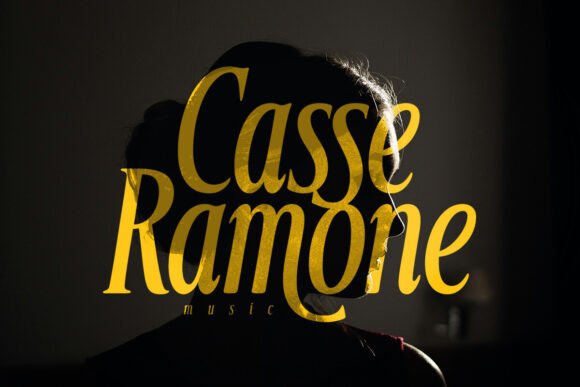
Discover the Elegance of Silkone Font: Elevate Your Designs with Sophistication and Charm
In the world of typography, fonts play a crucial role in conveying the tone and personality of a brand or design. Among the numerous fonts available, Silkone stands out as a sleek and refined display font that embodies sophistication and charm. Designed to make a lasting impression, Silkone offers a perfect blend of elegance and versatility, making it an ideal choice for various applications, from branding and packaging to invitations, editorial layouts, and logos.
The Design Philosophy of Silkone Font
Silkone’s design is rooted in the principles of balance, harmony, and elegance. The font features flowing strokes and curves that create a sense of warmth and softness, making it perfect for projects that require a touch of class and creativity. The regular and slanted styles of Silkone provide flexibility, allowing designers to experiment with different looks and moods. The font’s timeless appeal ensures that it remains relevant across various design contexts, from modern aesthetics to vintage-inspired projects.
Key Features of Silkone Font
- Elegant Curves: Silkone’s curves are meticulously crafted to create a sense of fluidity and movement, adding a touch of sophistication to any design.
- Balanced Proportions: The font’s balanced proportions ensure that it remains legible and visually appealing, even at smaller sizes.
- Regular and Slanted Styles: Silkone offers two styles, providing designers with flexibility and versatility in their creative projects.
- Timeless Appeal: The font’s classic design ensures that it remains relevant and stylish, even as design trends evolve.
Applications of Silkone Font
Silkone’s versatility makes it suitable for a wide range of applications, including:
- Branding: Silkone’s elegant curves and sophisticated feel make it perfect for branding projects that require a touch of luxury and refinement.
- Packaging: The font’s legibility and visual appeal make it ideal for packaging designs that require a clear and concise communication of the brand’s message.
- Invitations: Silkone’s flowing strokes and classic design make it a popular choice for invitations, adding a touch of elegance and sophistication to any event.
- Editorial Layouts: The font’s readability and aesthetic appeal make it suitable for editorial layouts, such as magazines, newspapers, and blogs.
- Logos: Silkone’s unique design and versatility make it an excellent choice for logos, allowing businesses to create a lasting impression.
Why Choose Silkone Font?
- Unique Design: Silkone’s elegant curves and flowing strokes create a unique and distinctive look that sets it apart from other fonts.
- Versatility: The font’s regular and slanted styles provide flexibility, making it suitable for various design applications.
- Timeless Appeal: Silkone’s classic design ensures that it remains stylish and relevant, even as design trends evolve.
- Ease of Use: The font is easy to read and works well in both digital and print formats.
Tips for Using Silkone Font Effectively
- Pair with Complementary Fonts: Combine Silkone with complementary fonts to create visual interest and hierarchy in your designs.
- Experiment with Sizes: Play with different font sizes to create contrast and emphasize key elements in your design.
- Use Color Wisely: Choose colors that complement the font and enhance the overall aesthetic of your design.
- Keep it Simple: Avoid overusing Silkone; instead, use it sparingly to create a lasting impression.
Silkone font is a versatile and elegant display font that offers a perfect blend of sophistication and charm. With its flowing strokes, balanced proportions, and timeless appeal, Silkone is ideal for various design applications, from branding and packaging to invitations, editorial layouts, and logos. Whether you’re aiming for a modern aesthetic or a vintage flair, Silkone effortlessly adapts to bring your designs to life. So, why settle for ordinary fonts when you can elevate your designs with the elegance of Silkone?
- What is Silkone font? Silkone is a sleek and refined display font designed to convey sophistication and charm.
- What are the key features of Silkone font? Silkone features elegant curves, balanced proportions, regular and slanted styles, and a timeless appeal.
- What are the applications of Silkone font? Silkone is suitable for branding, packaging, invitations, editorial layouts, logos, and more.
- Why should I choose Silkone font? Silkone offers a unique design, versatility, timeless appeal, and ease of use, making it an excellent choice for designers.